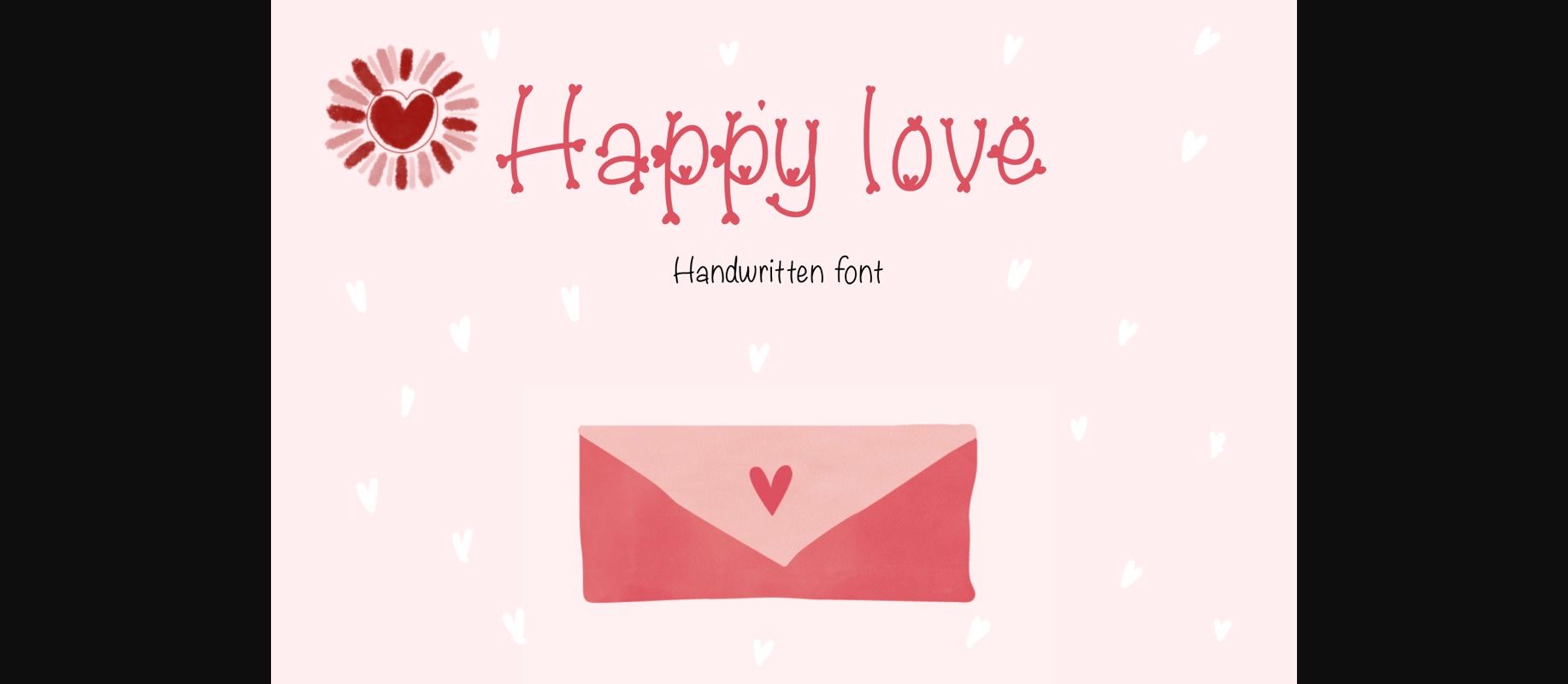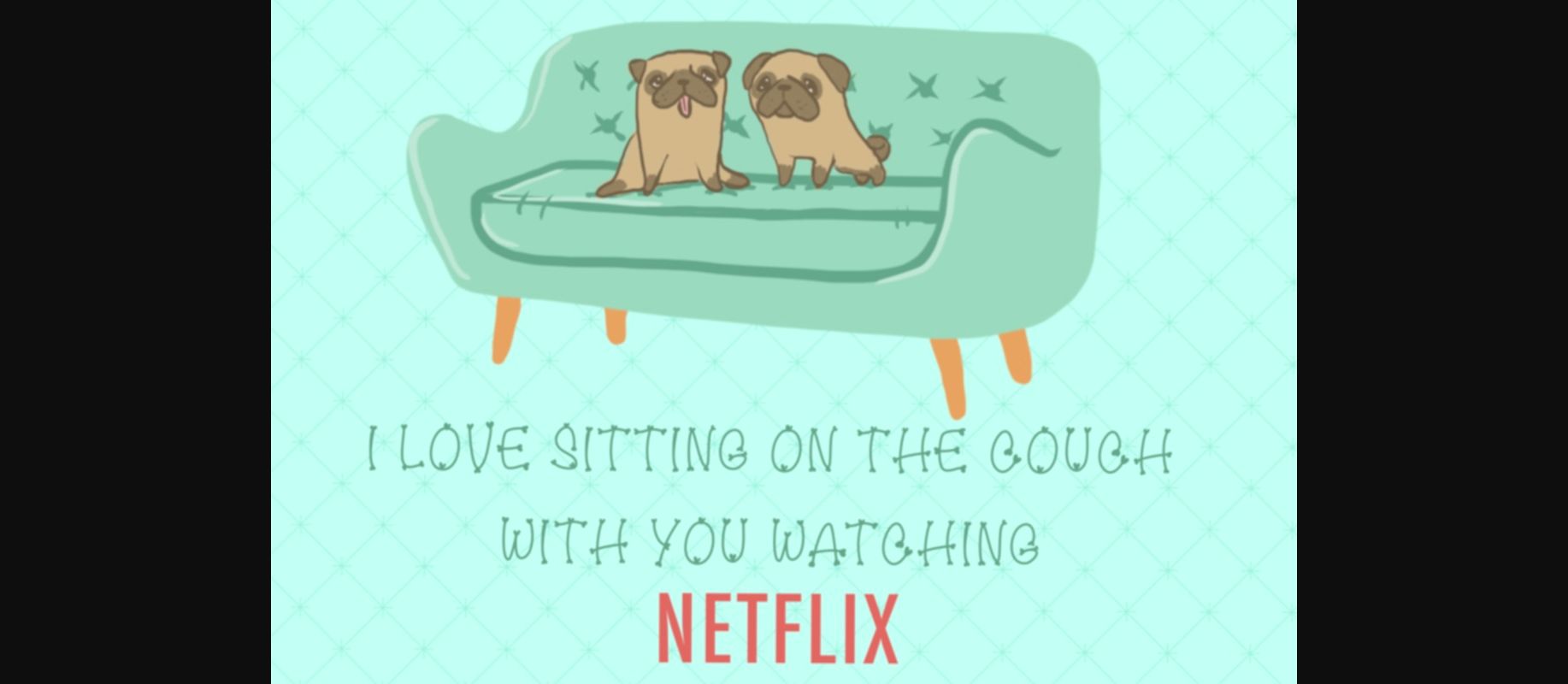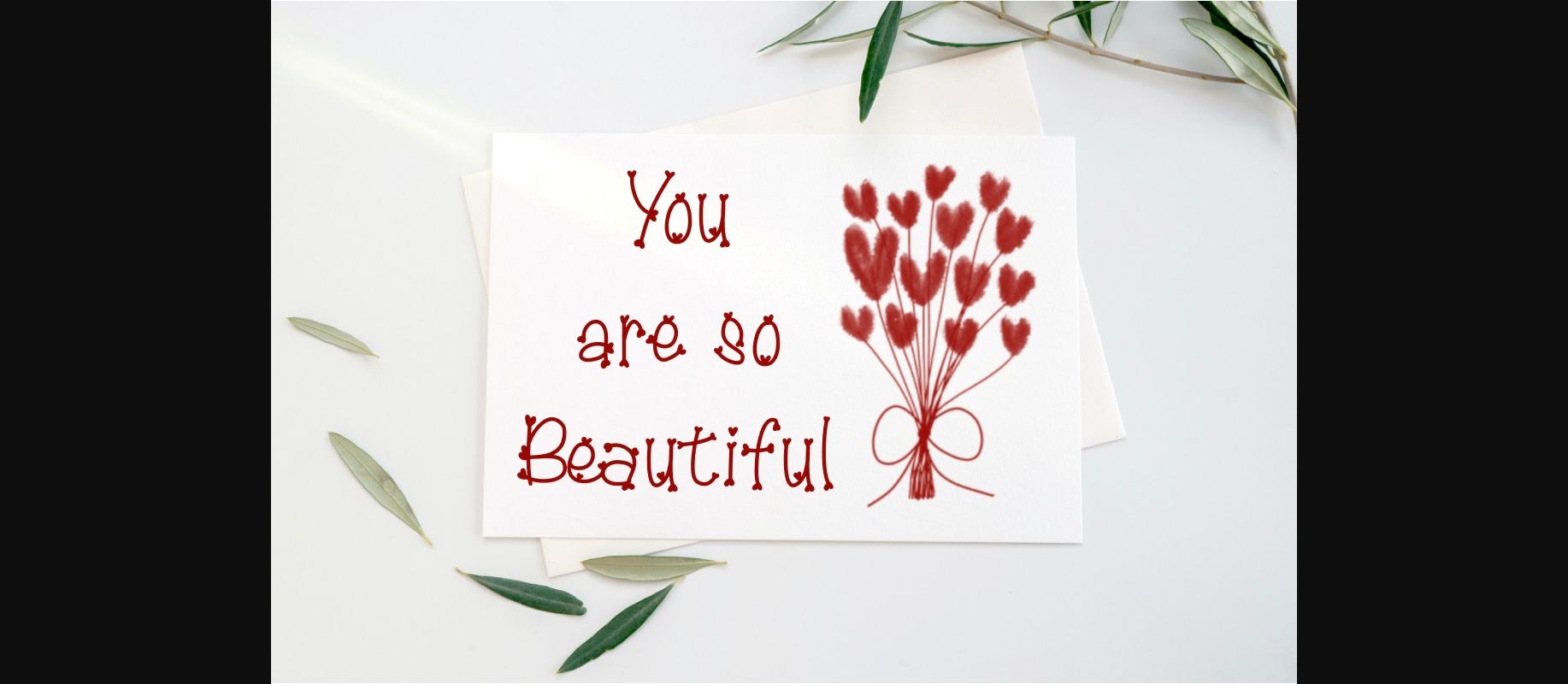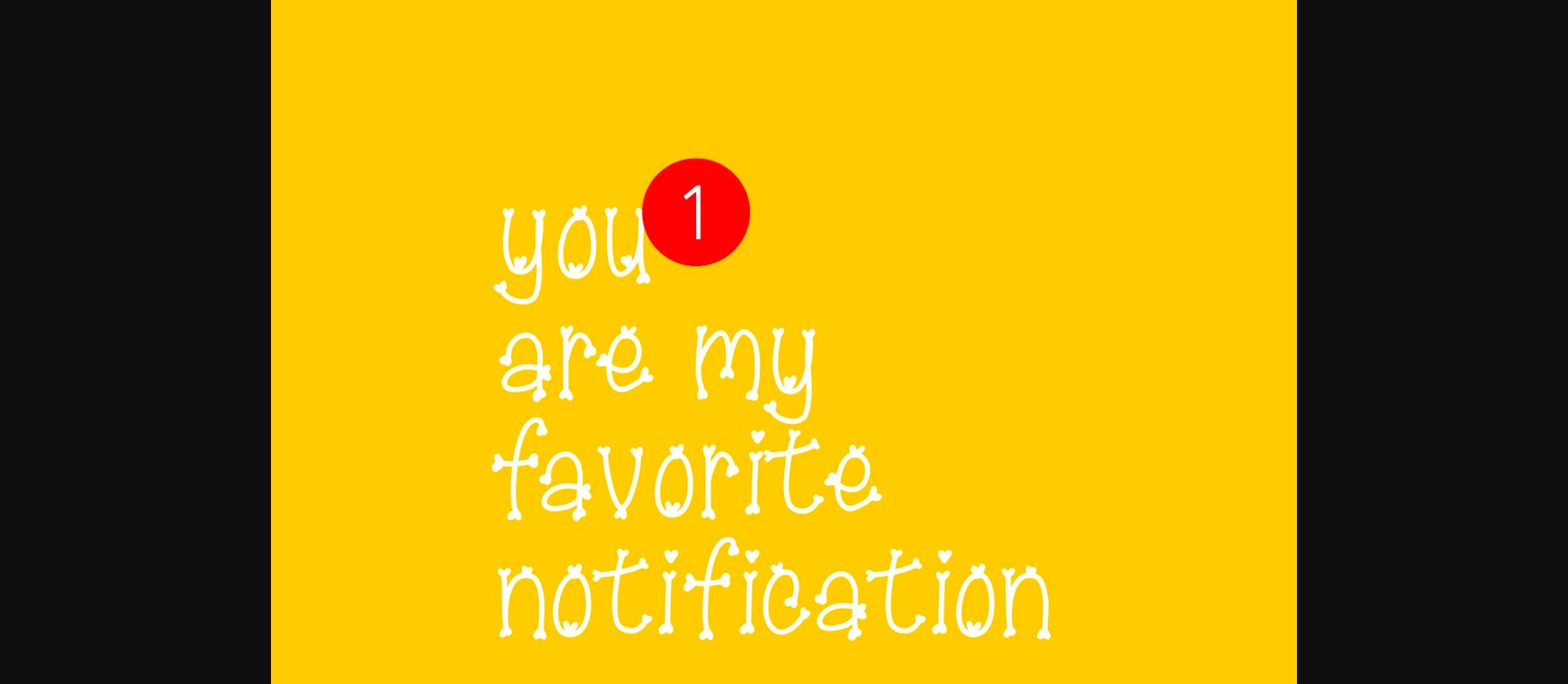
Happy Love Font
About Happy Love Font
Happy Love is an incredibly unique decorative font. Masterfully designed to become a true favorite, this font has the potential to bring each of your creative ideas to the highest level!